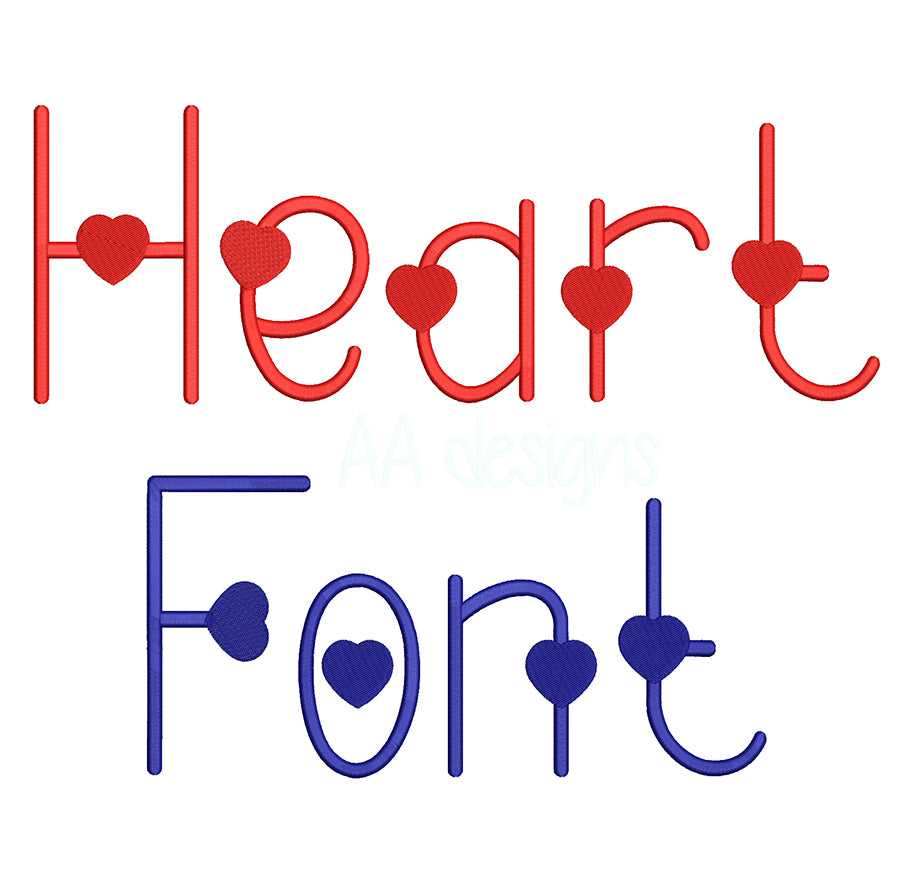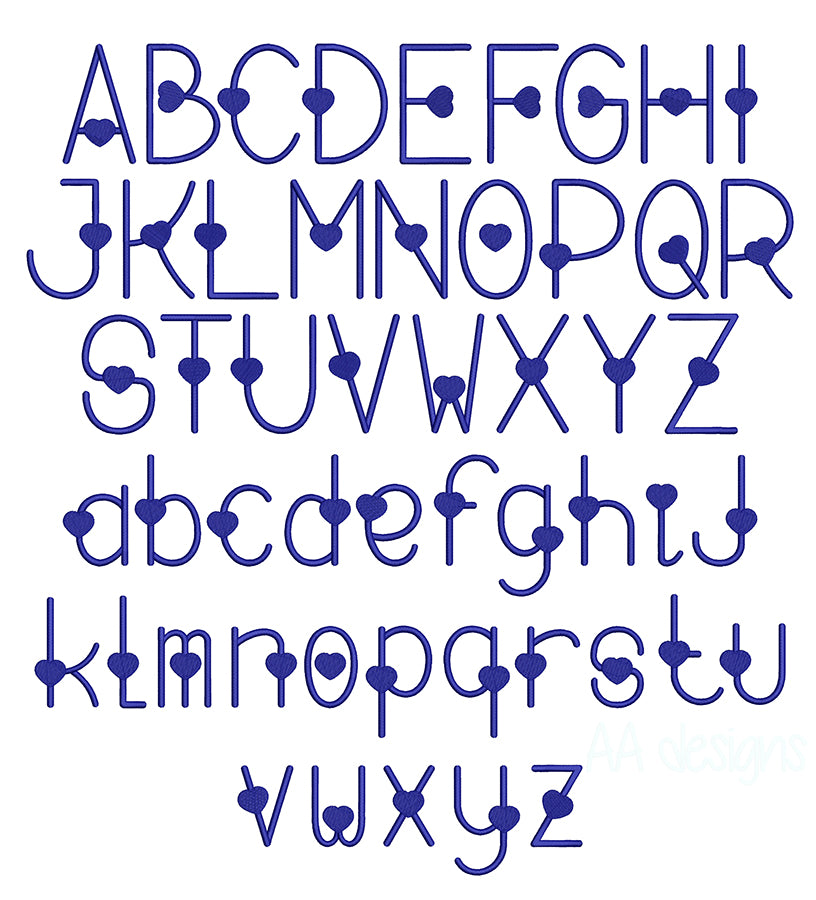
Heart Accent Embroidery Font
Fall in love with every stitch using the Heart Accent Embroidery Font — a charming, thin-line machine embroidery font featuring adorable heart accents built into each letter for a sweet, romantic look that stands out beautifully. ❤️✨🧵
With its elegant fine-line strokes and playful heart details, this font is perfect for Valentine's Day gifts, wedding and anniversary keepsakes, baby shower items, Mother's Day presents, boutique apparel, and any project that deserves a heartfelt personal touch.
- Includes full alphabet (A–Z, a–z) and numbers
- Thin-line design with heart accents — best stitched at medium to large sizes for full detail
- Clean, precise stitching that makes every heart accent pop